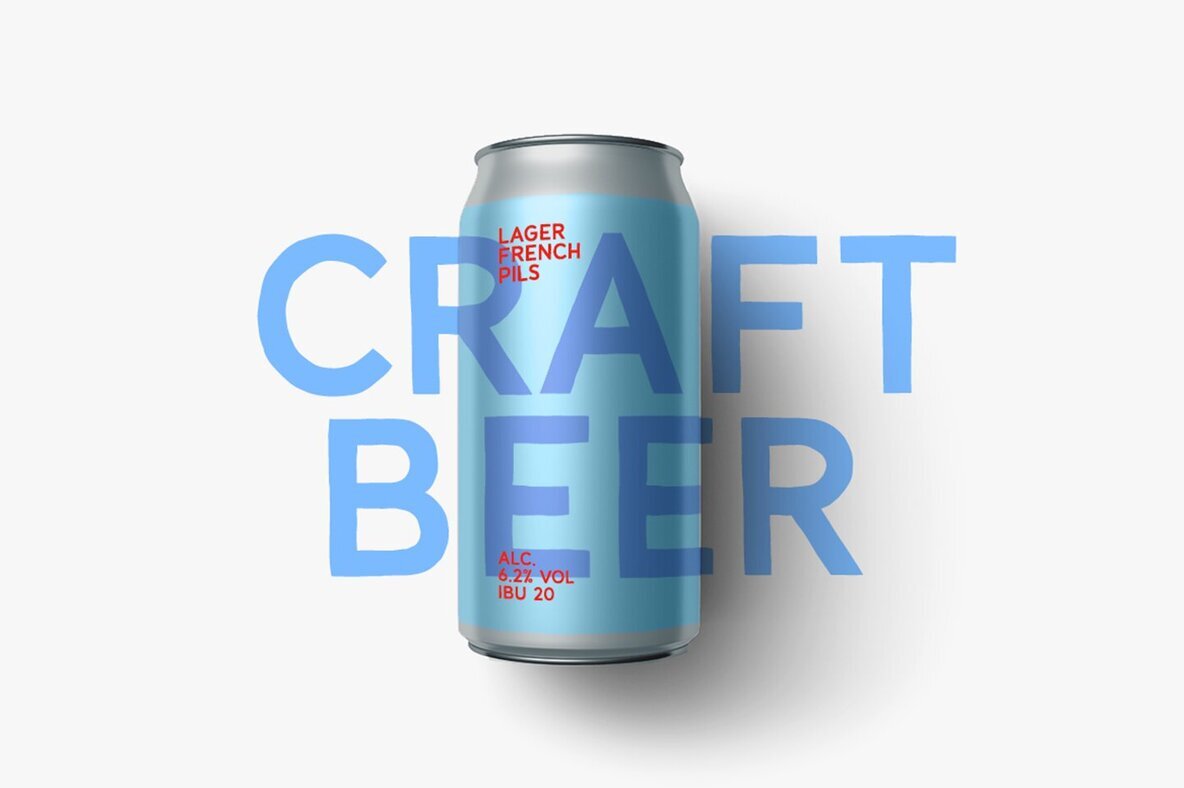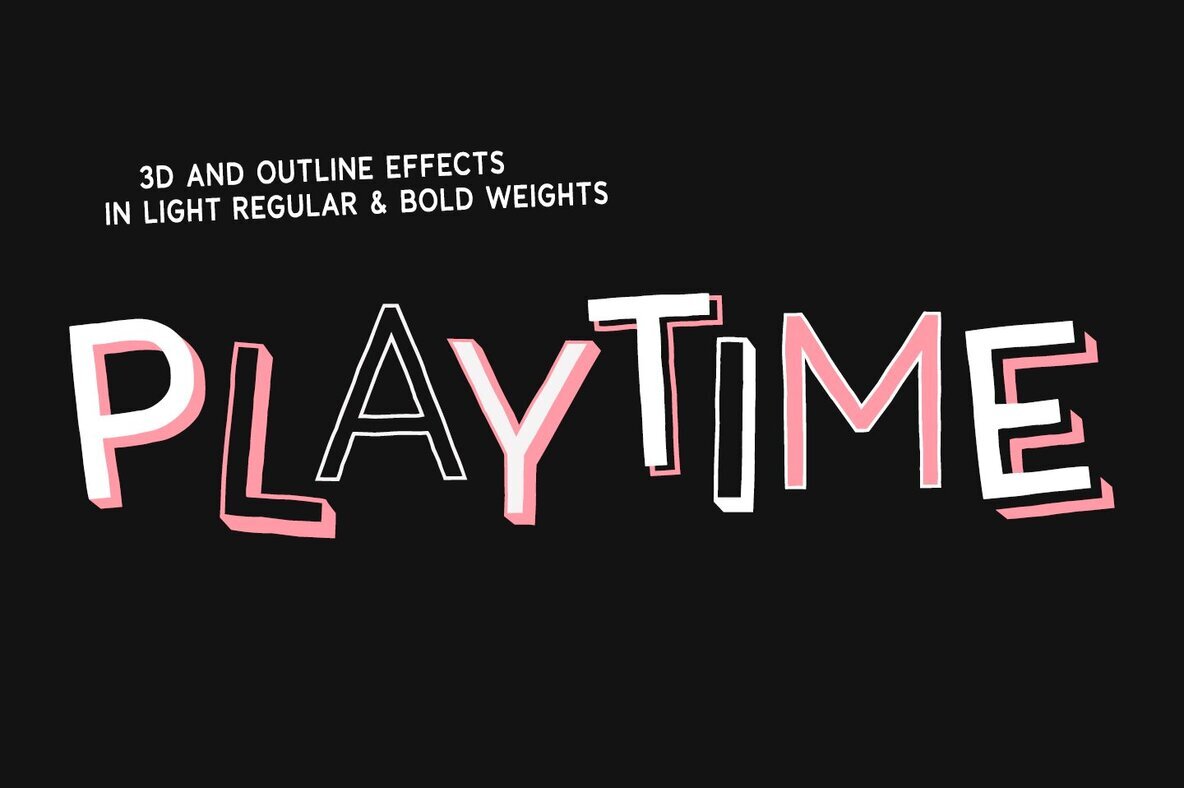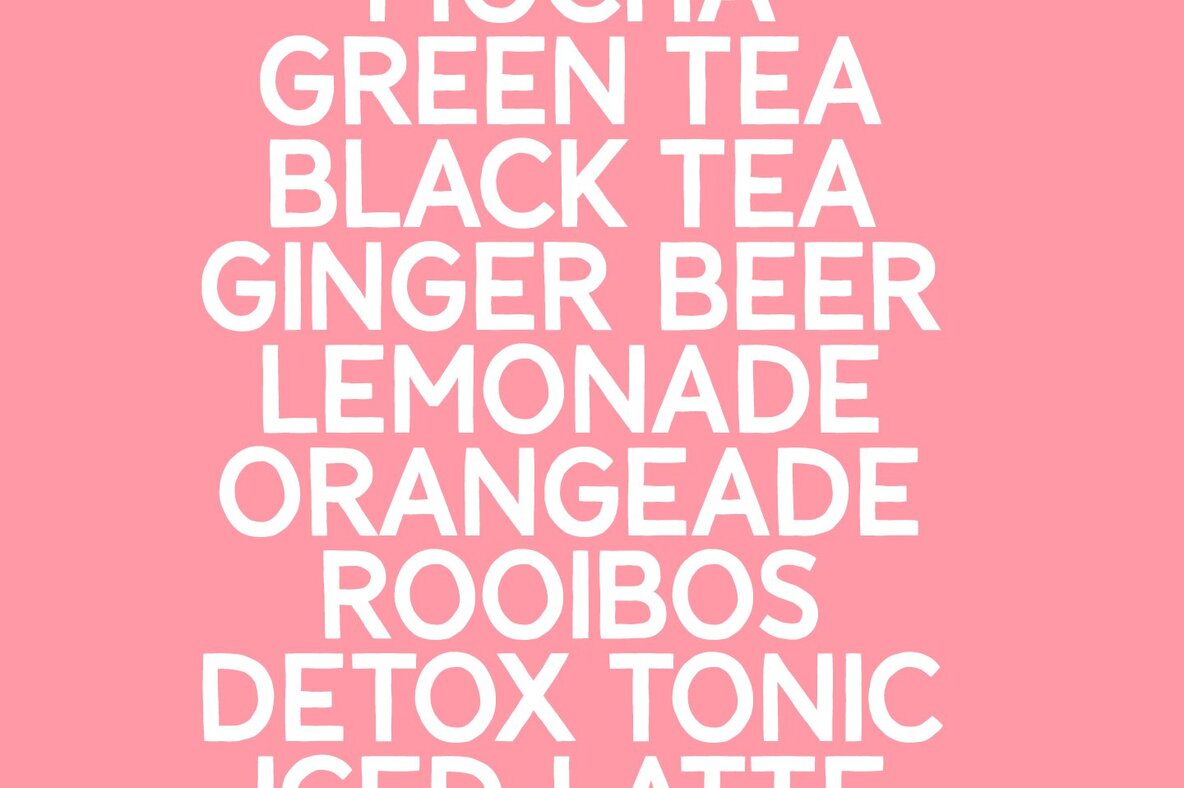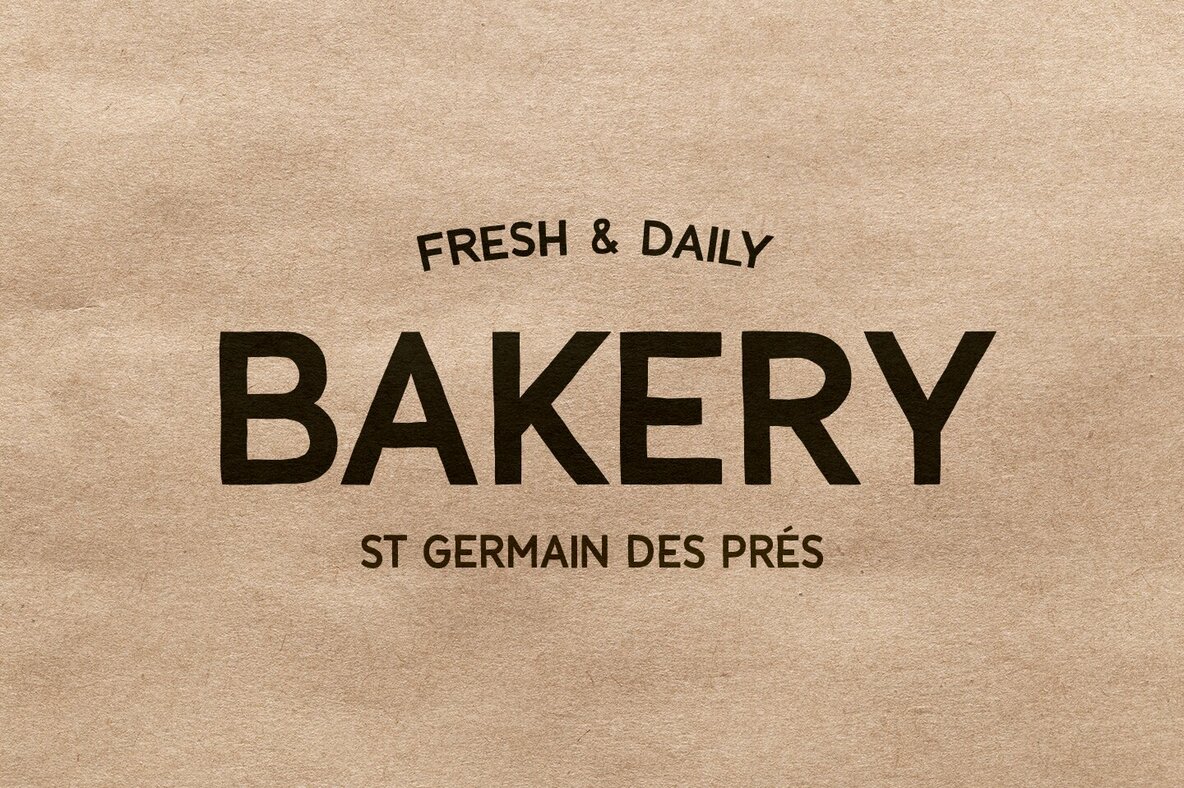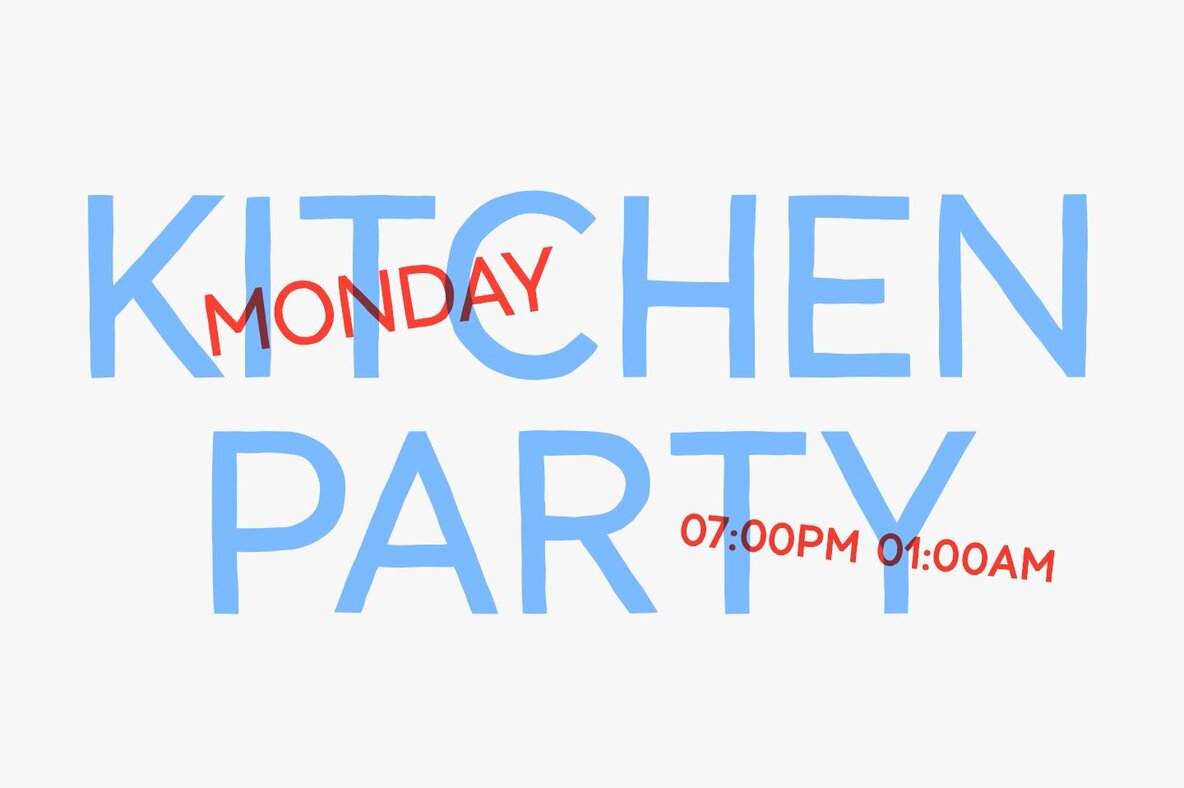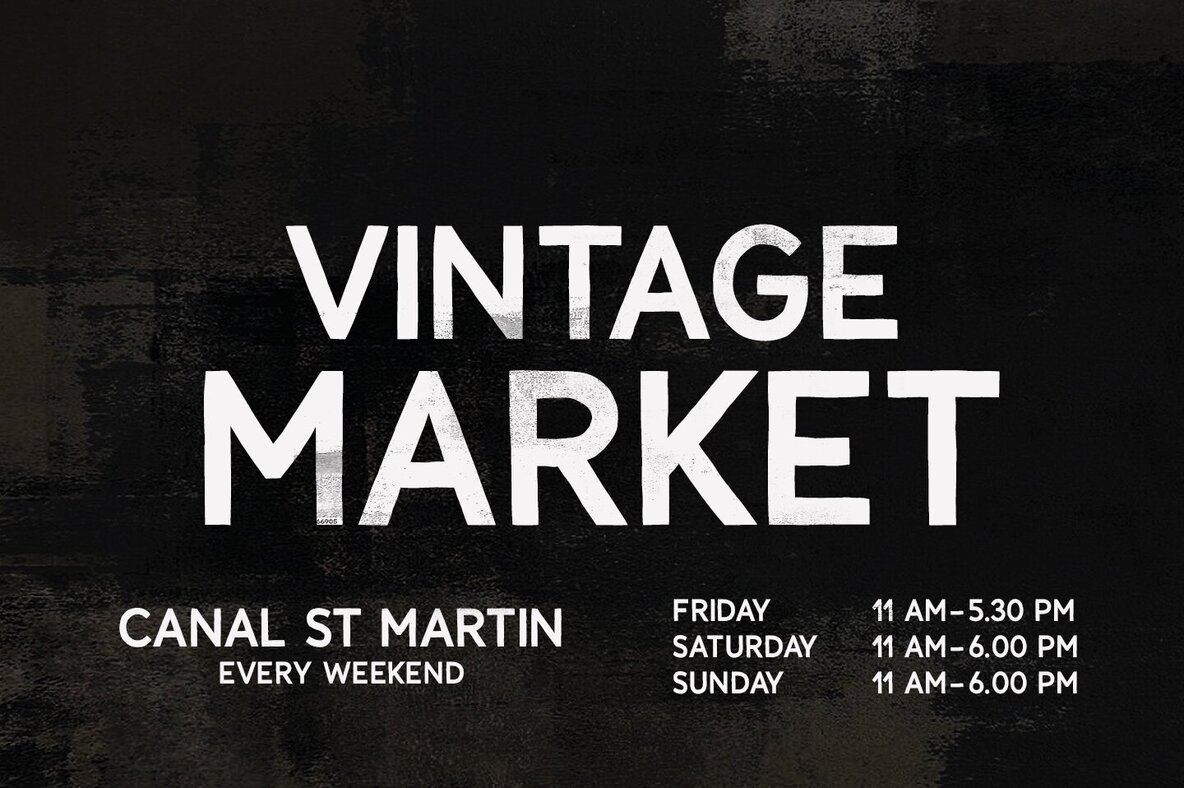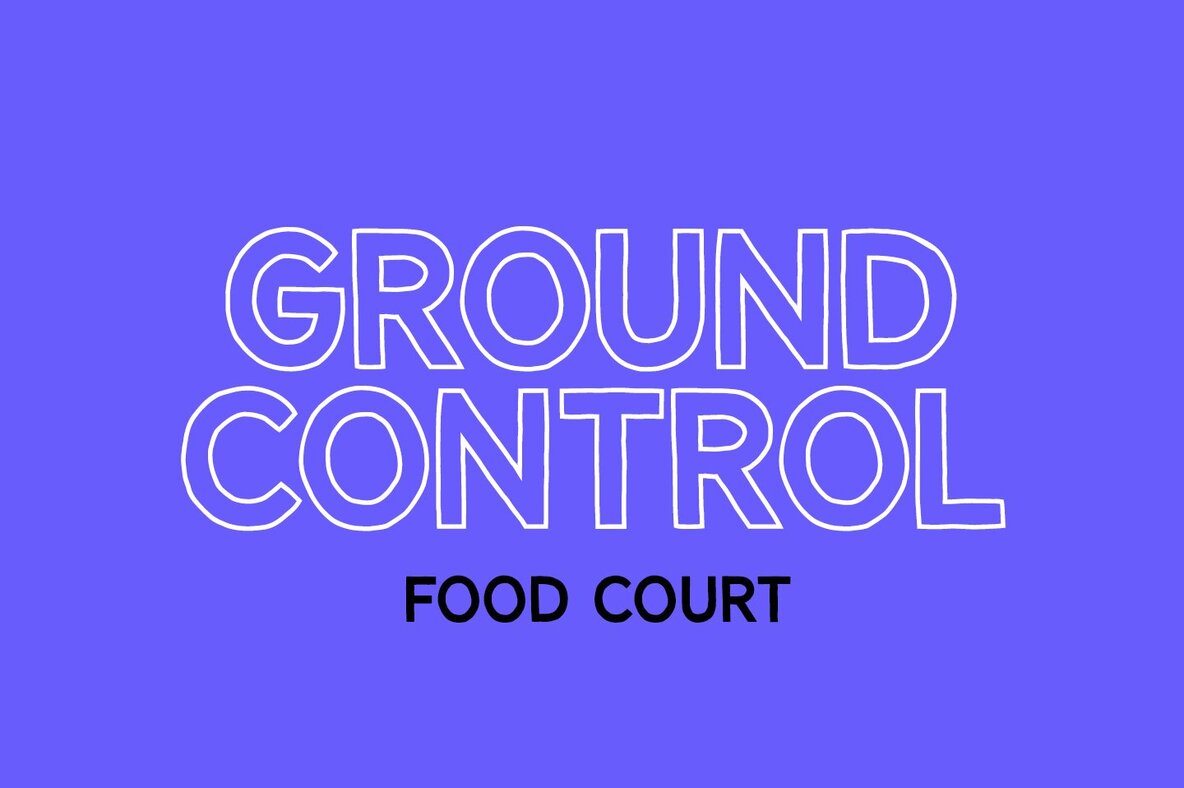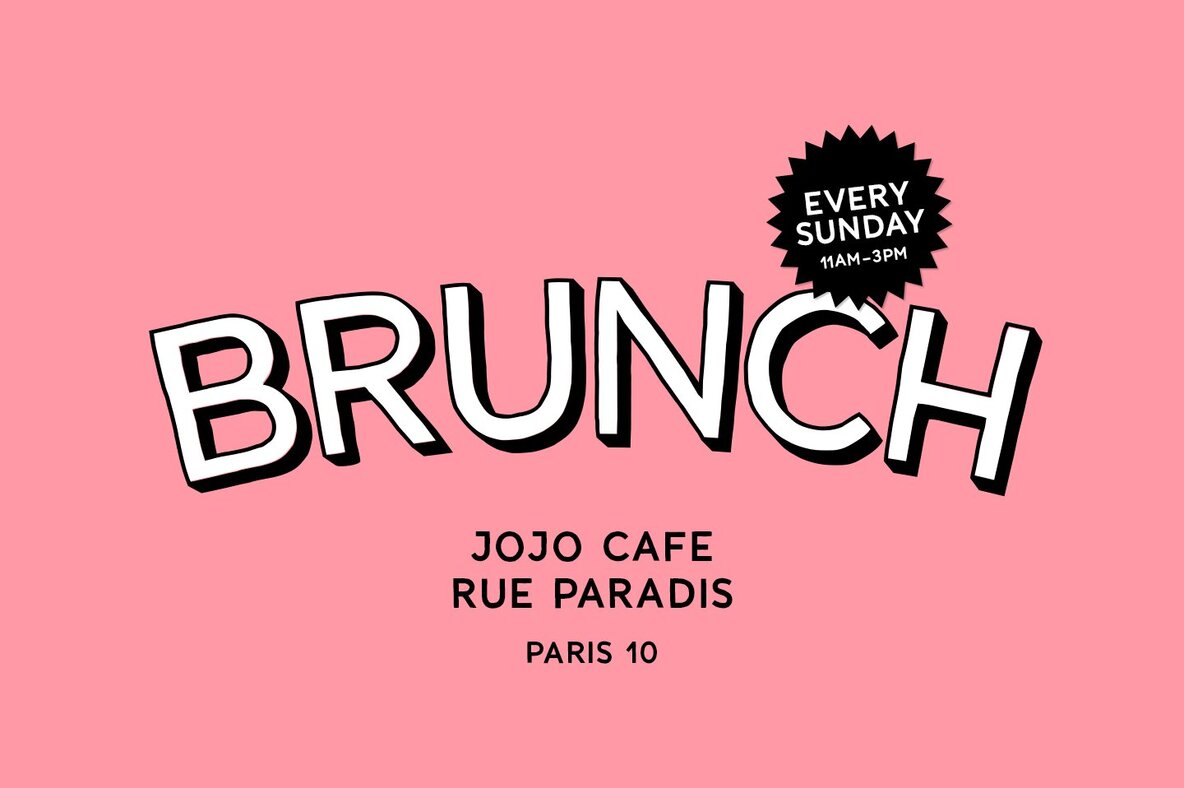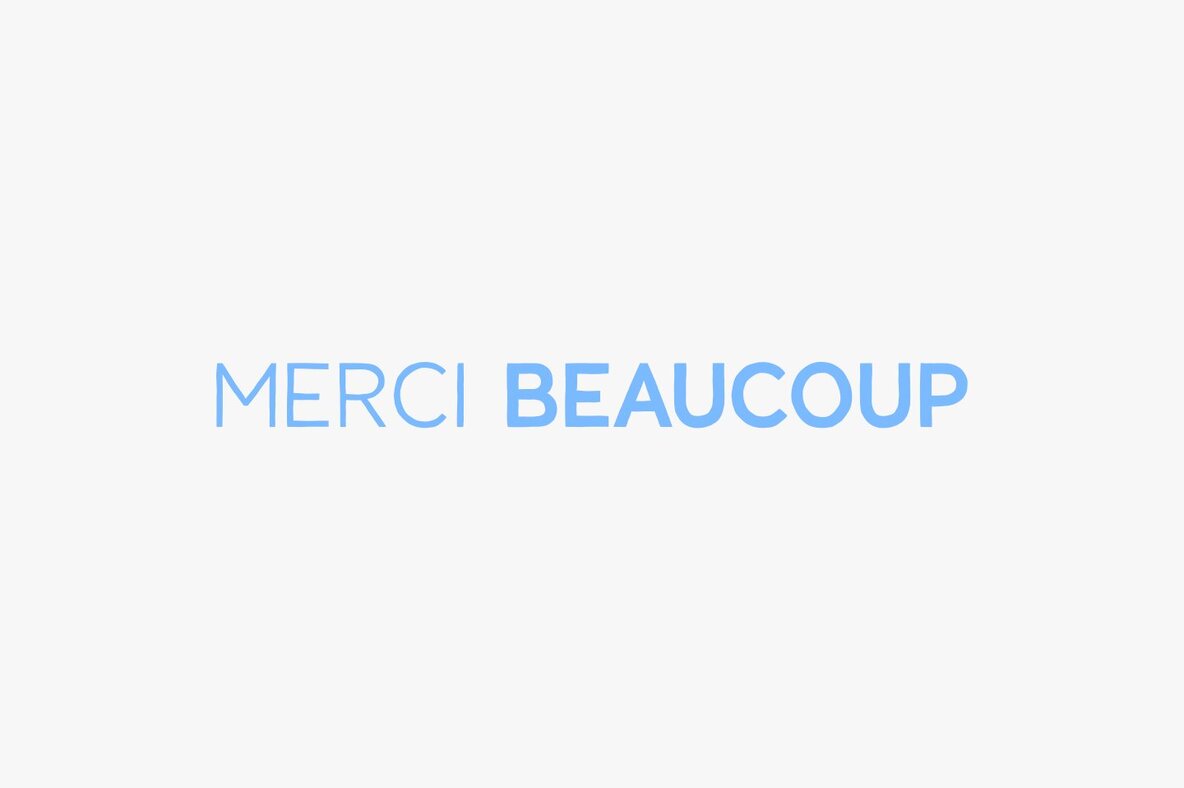
Paname: Retro Handwritten Font Inspired by Paris
Paname is a unique handwritten font crafted by S&C Type, capturing the essence of a retro pop aesthetic intertwined with Parisian charm, as "Paname" is the colloquial name for Paris.
• Versatile Weight Options – The family includes 3 different weights to enhance design flexibility.
• 3D and Outline Effects – Features distinct visual effects for added design depth.
• Comprehensive Character Set – Offers standard and extended Latin characters for wider application.
Experience the heritage and vibrancy of Paris in your designs with Paname. Merci beaucoup!